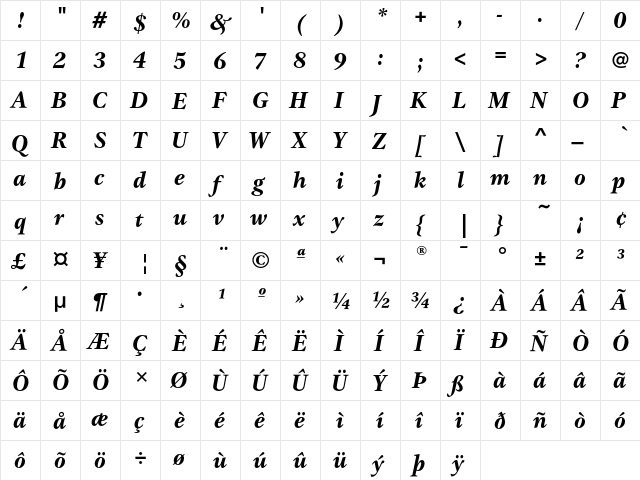
GammaEF BoldItalic Font Preview
Design Context for GammaEF Typeface
GammaEF takes a measured approach to typography — its balanced proportions and neutral character make it a reliable workhorse for both digital and print work. Its italic angle brings a sense of urgency and motion to the letterforms. The heavy weight commands attention and anchors typographic hierarchies.
Pro Tip: Try GammaEF for annotation and caption copy alongside an upright companion — the contrast in angle creates a dynamic but ordered typographic system.